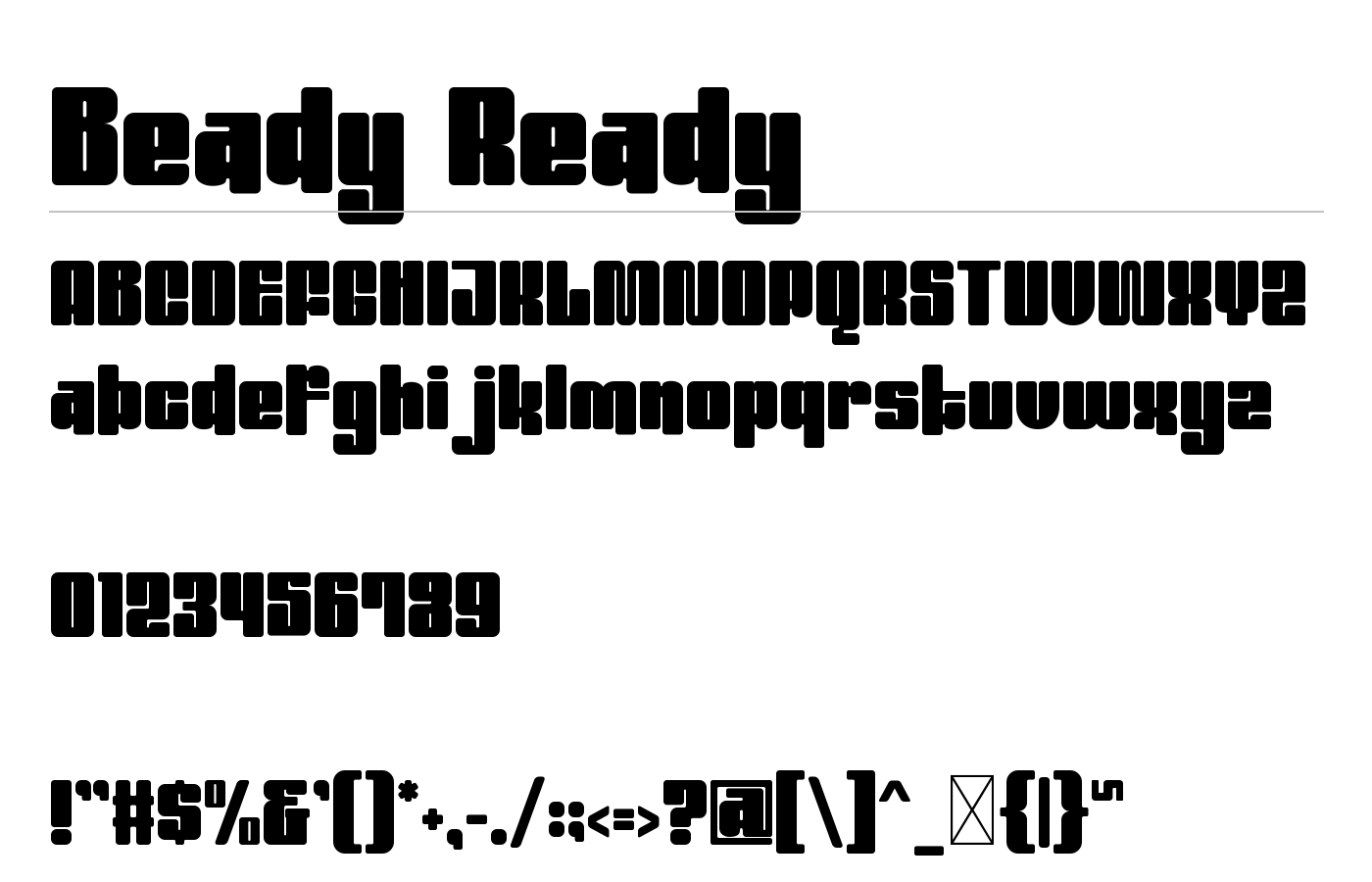
Beady Ready is a bold, condensed sans serif font with a strong, blocky appearance and uniform stroke weight, giving it a modern and industrial feel. Its geometric shapes and tight letter spacing create a striking presence, making it ideal for attention-grabbing headlines, logos, and branding that require a confident, urban vibe. This font works best where impact and readability at large sizes are key, such as posters or packaging with a contemporary edge.
Beady Ready Font
About Beady Ready Font
| Font family | Beady Ready Font |